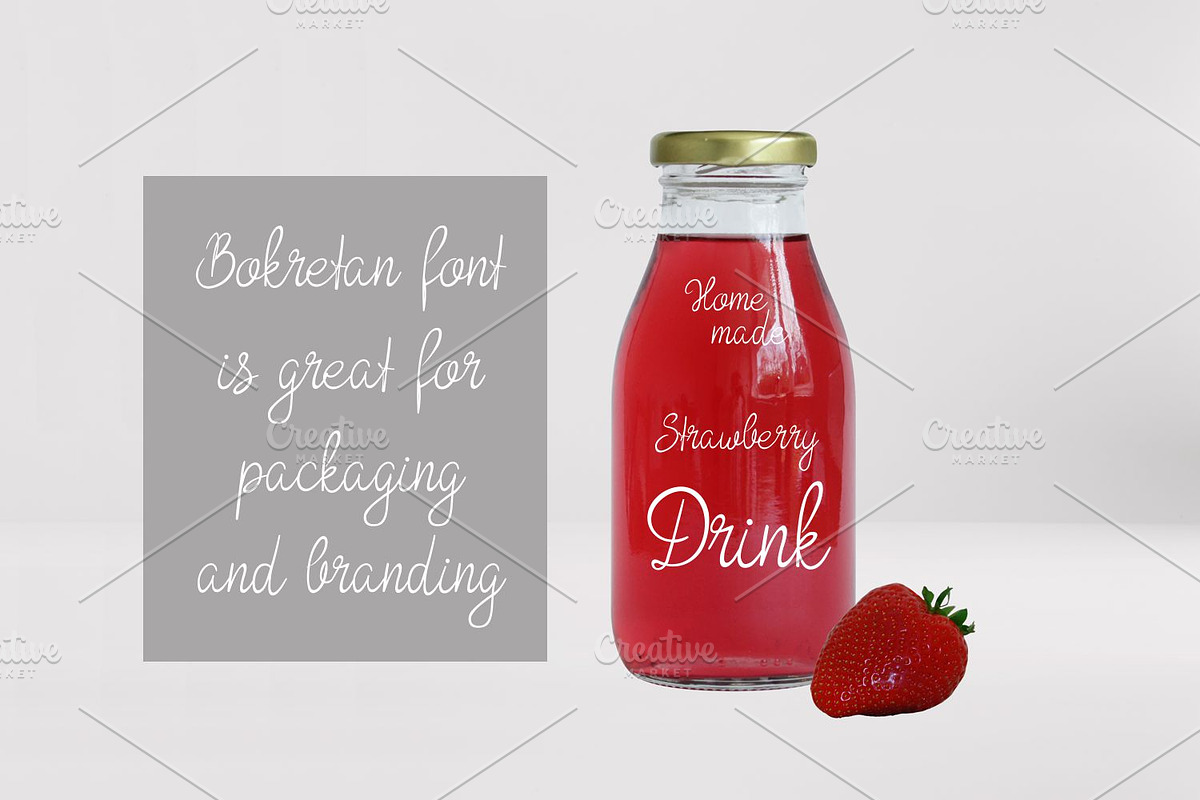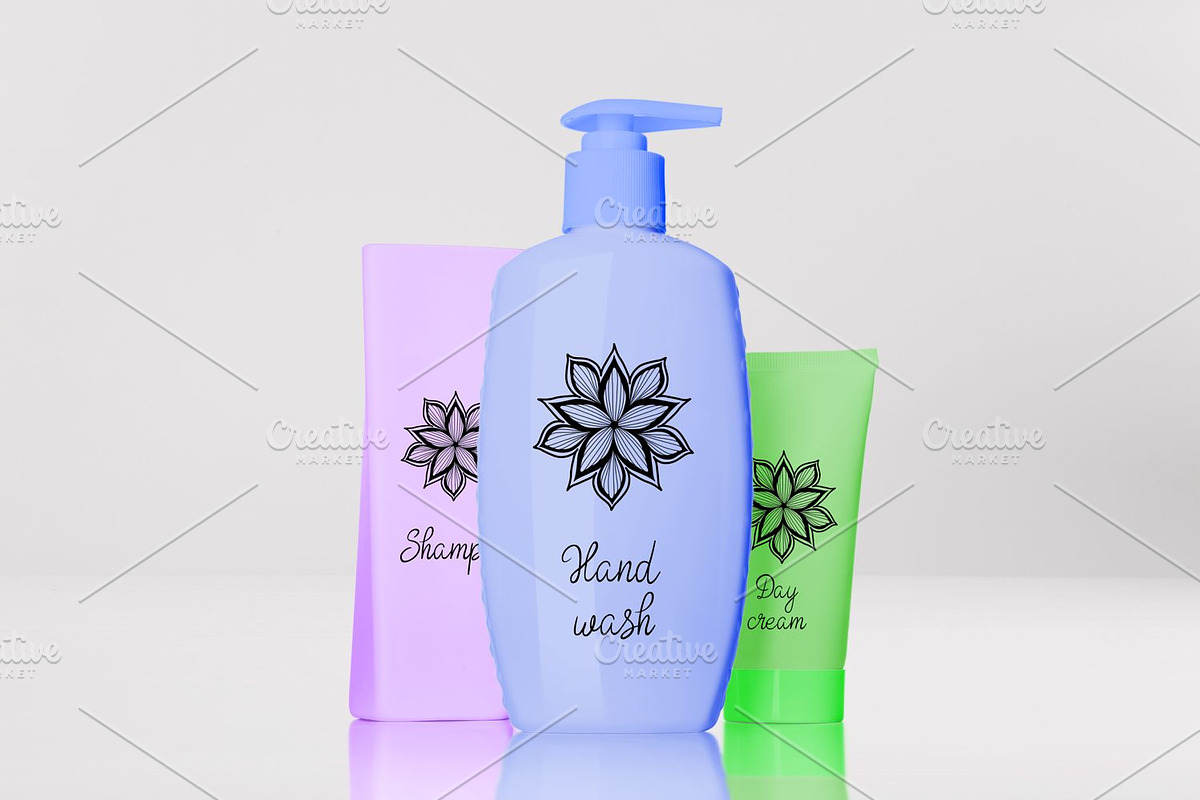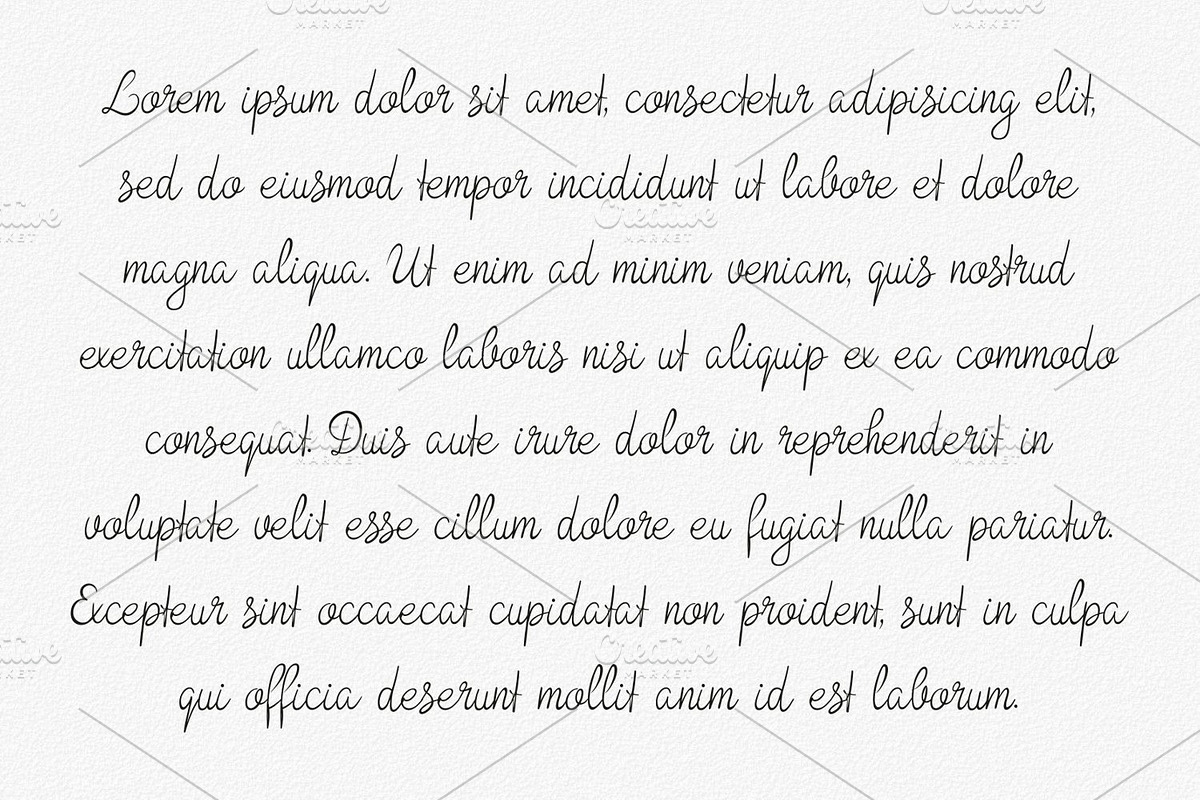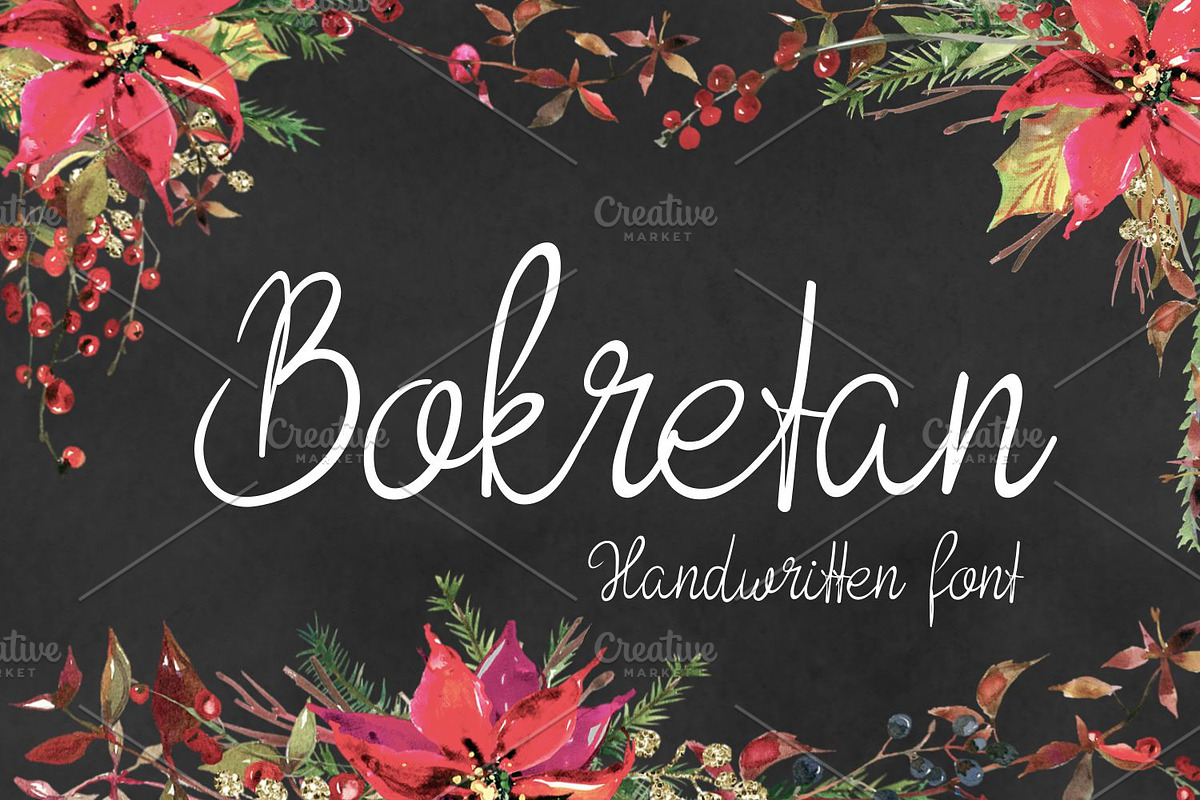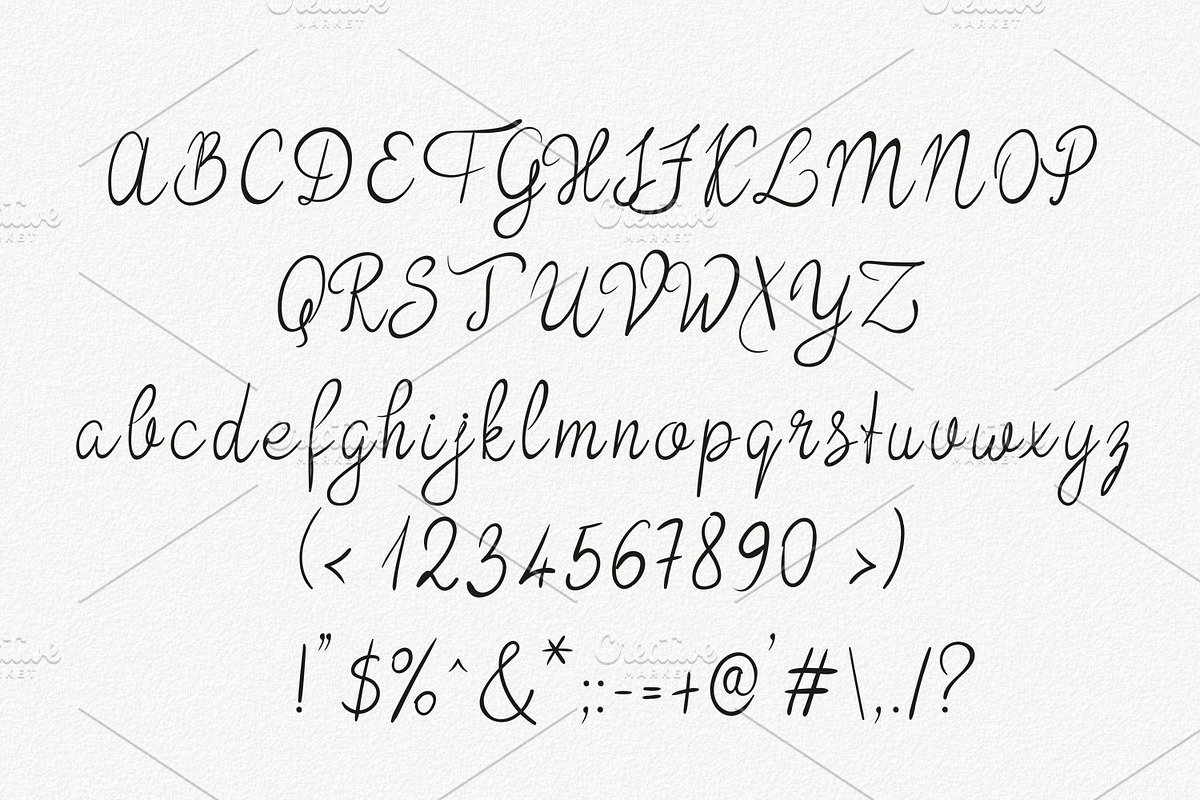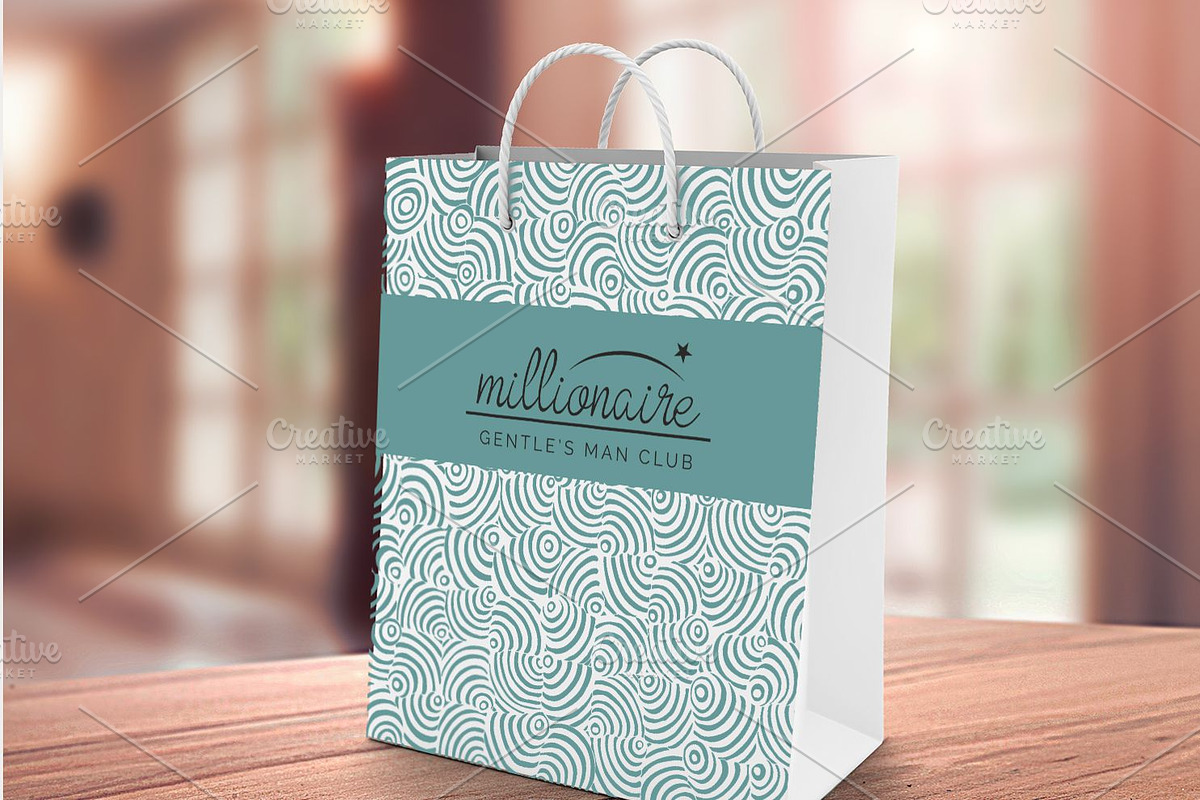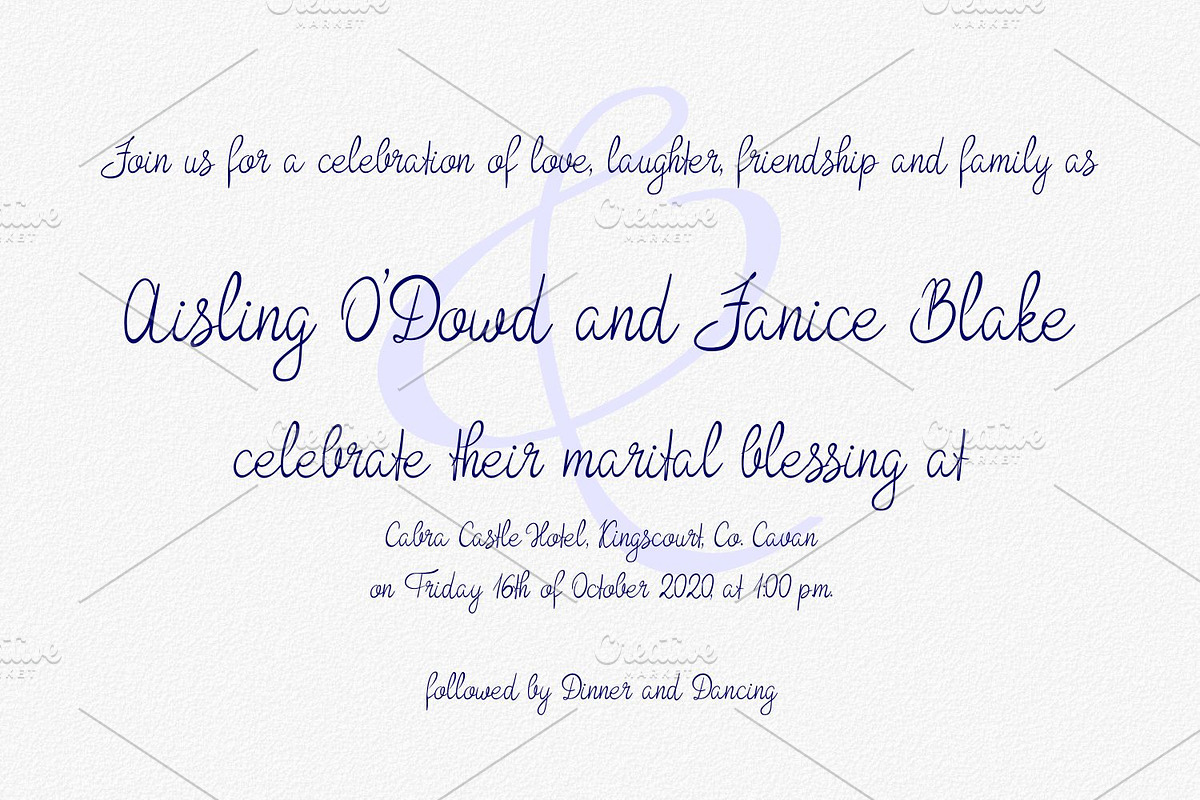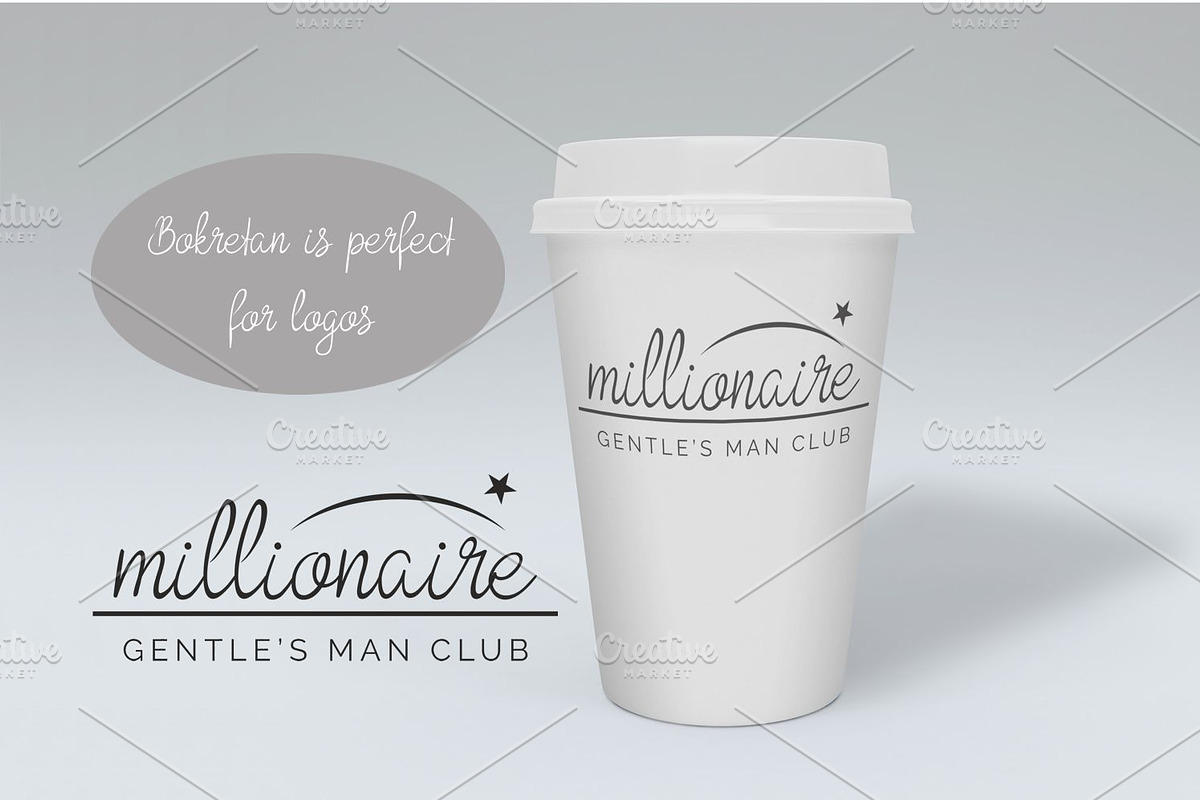
Bokretan
Introducing Bokretan handwritten typeface.
Why Bokretan is worth a look
Bokretan by Digital Typeface Studio fits naturally into Branding, posters, packaging, typography.